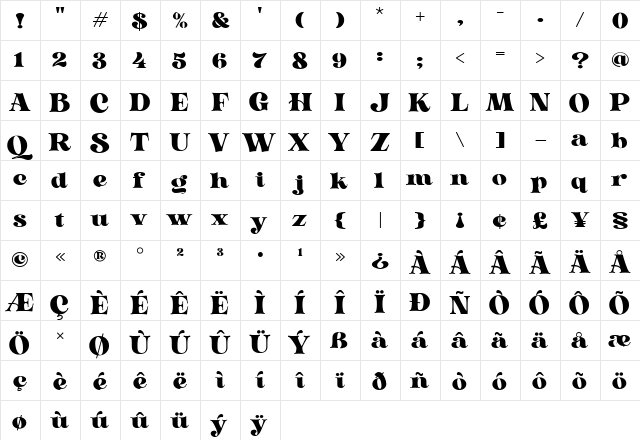
Golden Metafor Regular
| Foundry | Kulokale Studio |
| Designer | M Arif Dwi Prasetyo & Eko Nurcahyo |
Design Context for Golden Metafor Typeface
Golden Metafor is a composed and adaptable typeface that performs quietly and consistently across a wide range of design contexts.